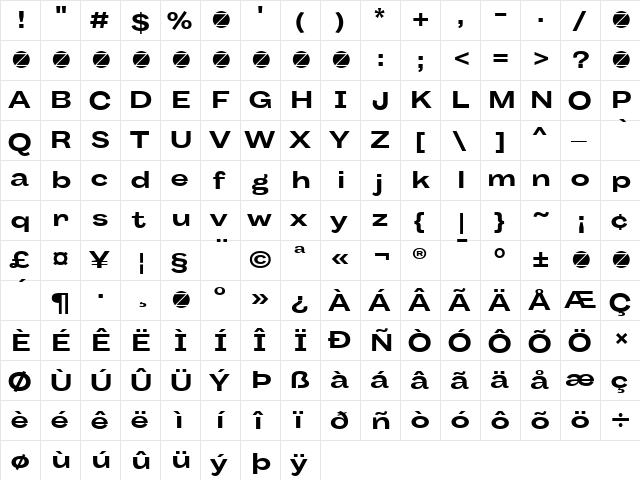
Body Grotesque Large Trial Bold Font Preview
Body Grotesque Large Trial Bold
Body Grotesque Large Trial Bold Font Details
| Foundry | Studio Kmzero & Zetafonts |
| Designer | Cosimo Lorenzo Pancini |
Design Context for Body Grotesque Large Trial Typeface
Body Grotesque Large Trial offers clean, dependable letterforms without strong stylistic allegiance, making it a practical choice for designers who need flexibility. Its bold stroke weight gives it real presence on the page.